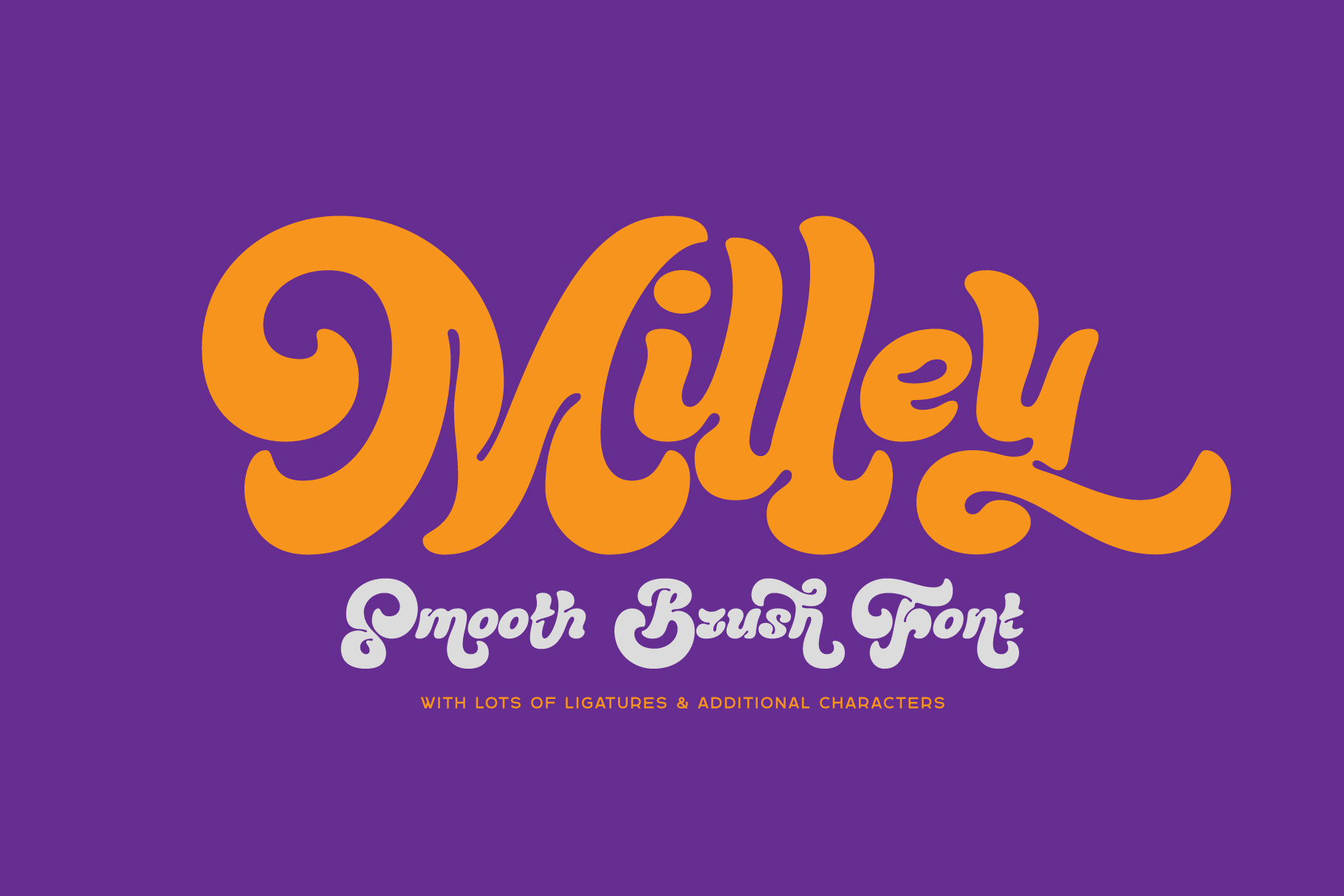
Milley — Smooth Brush Font
Hello! Presenting a nice brush style font — Milley. This typeface has a soft friendly shape that suits perfectly for packaging & label design. Lots of ligatures and extra glyphs will help you to create an original lettering compositions.